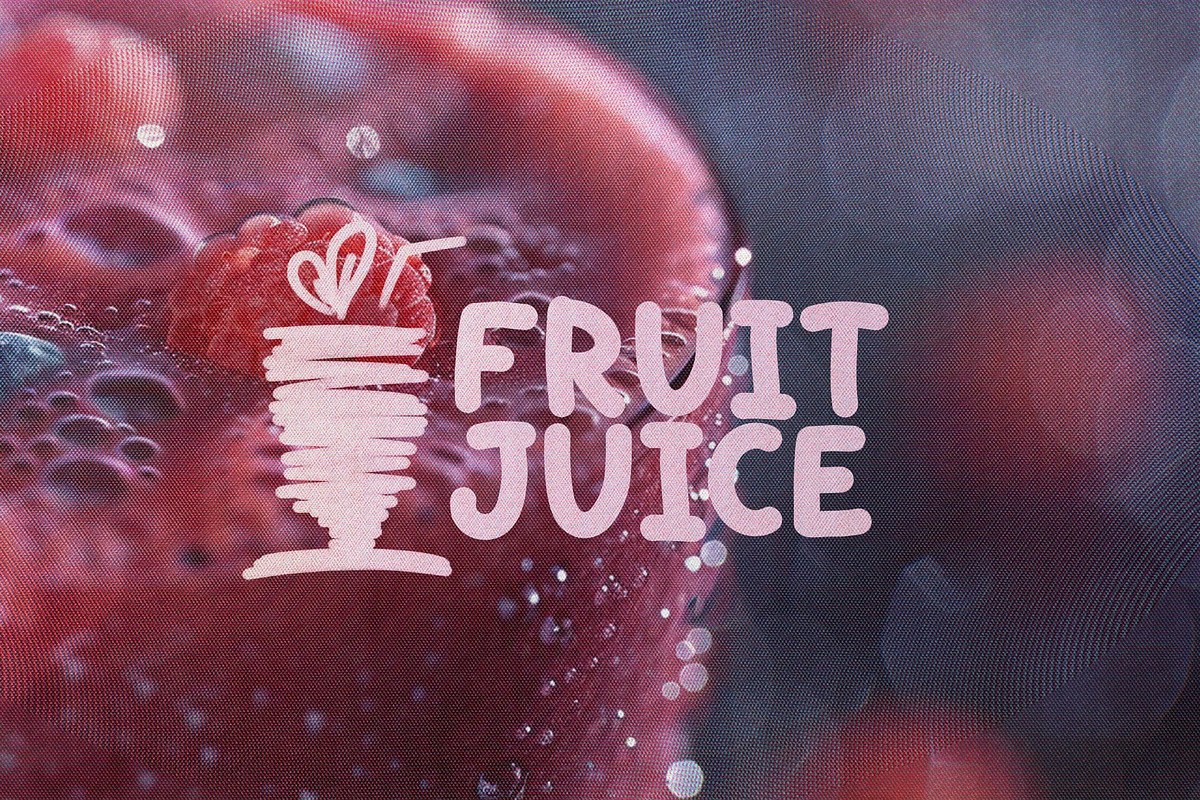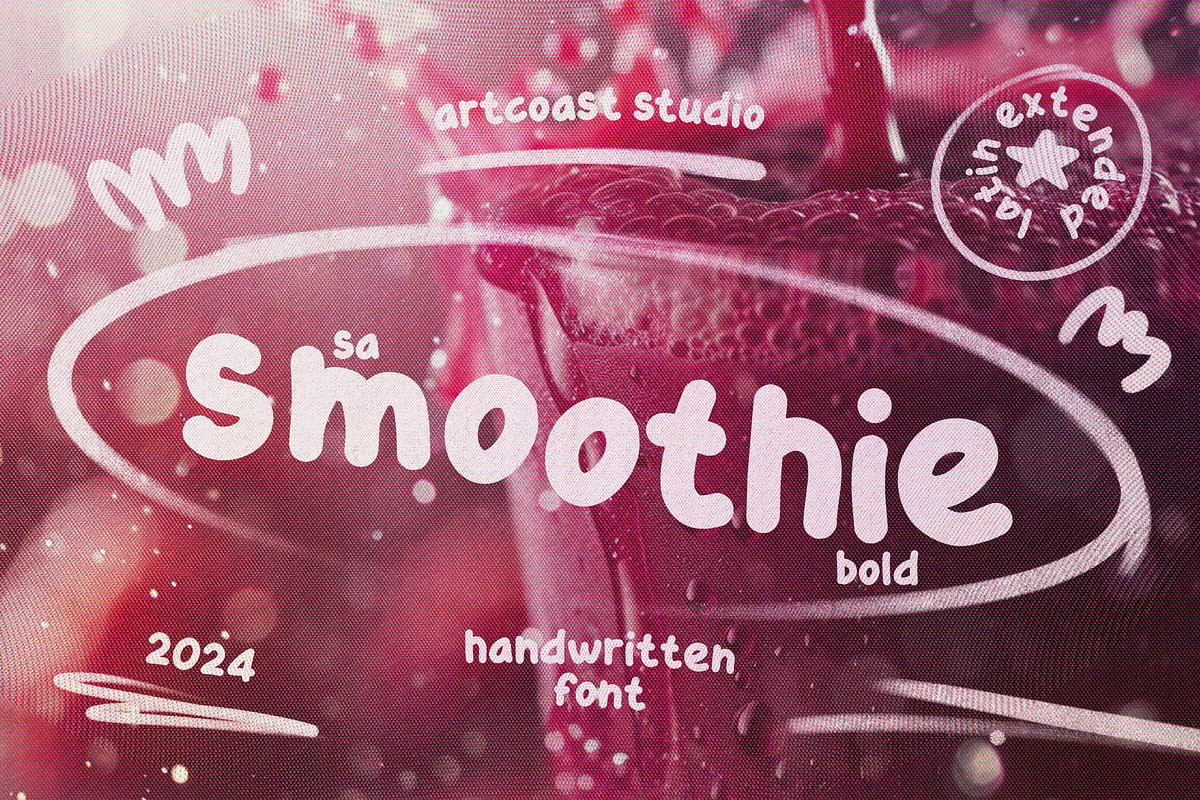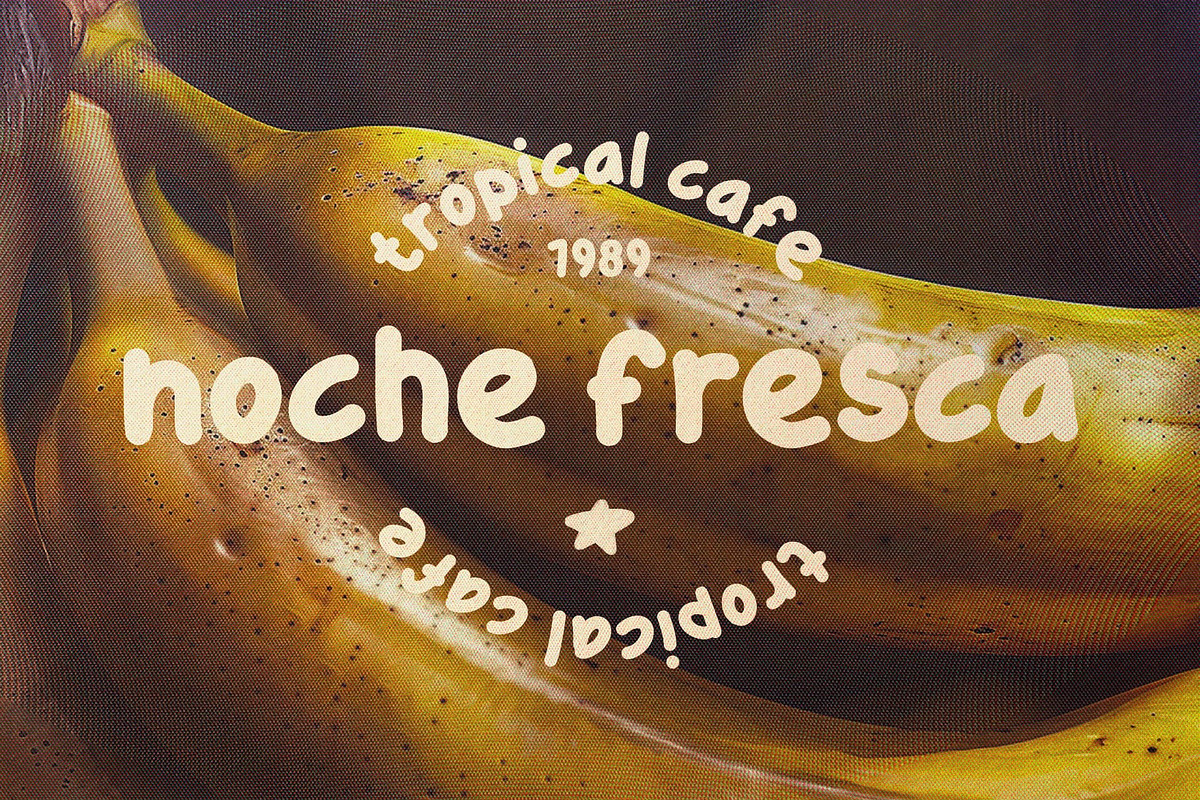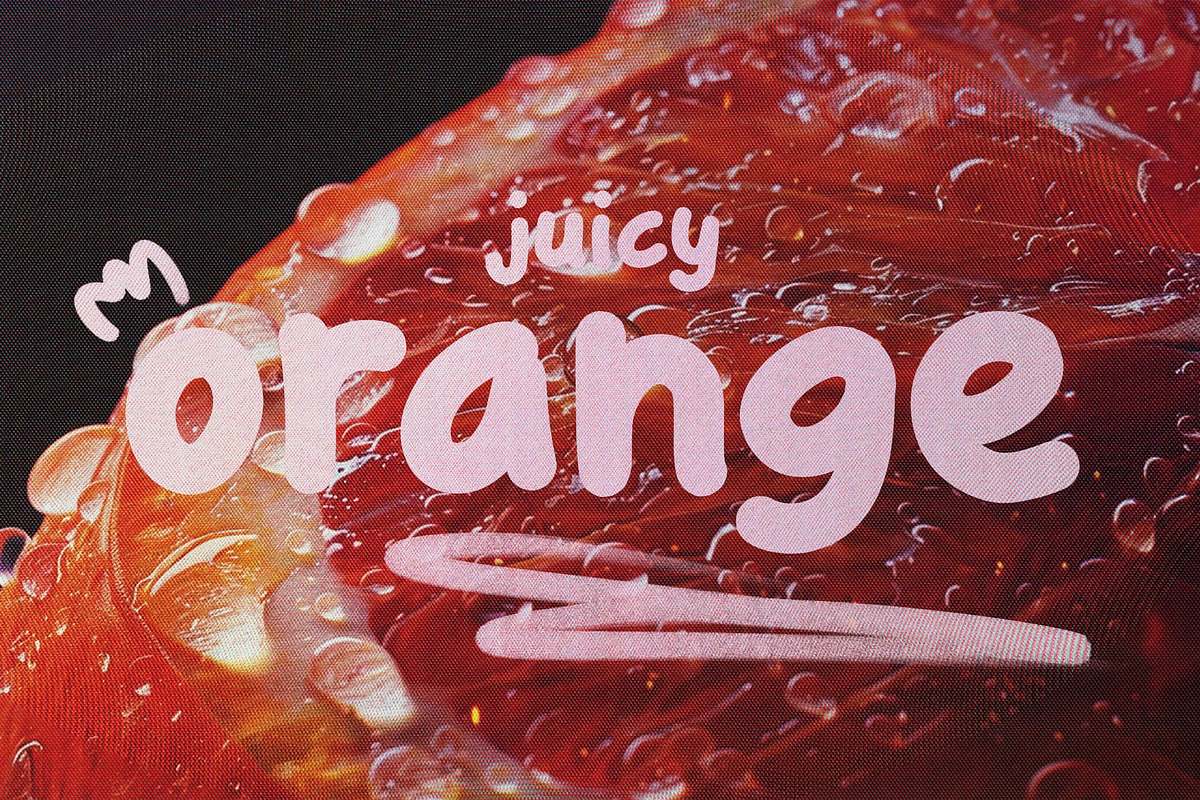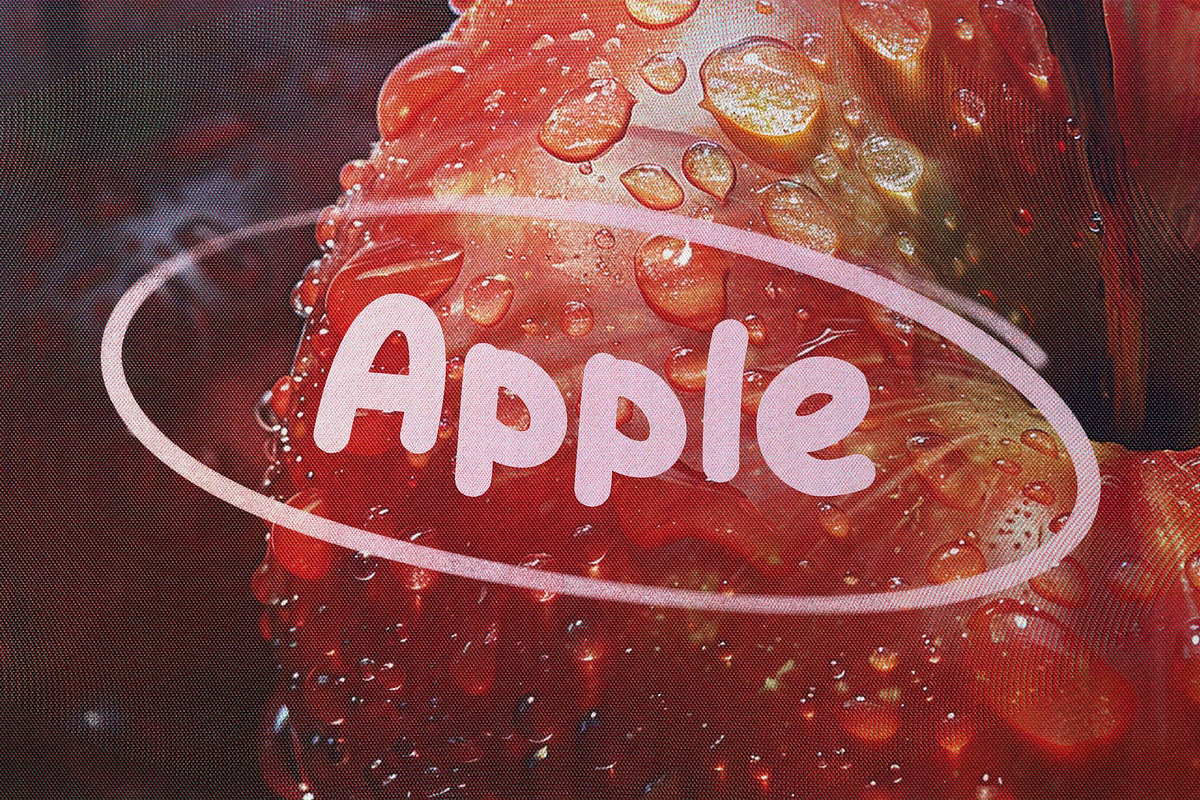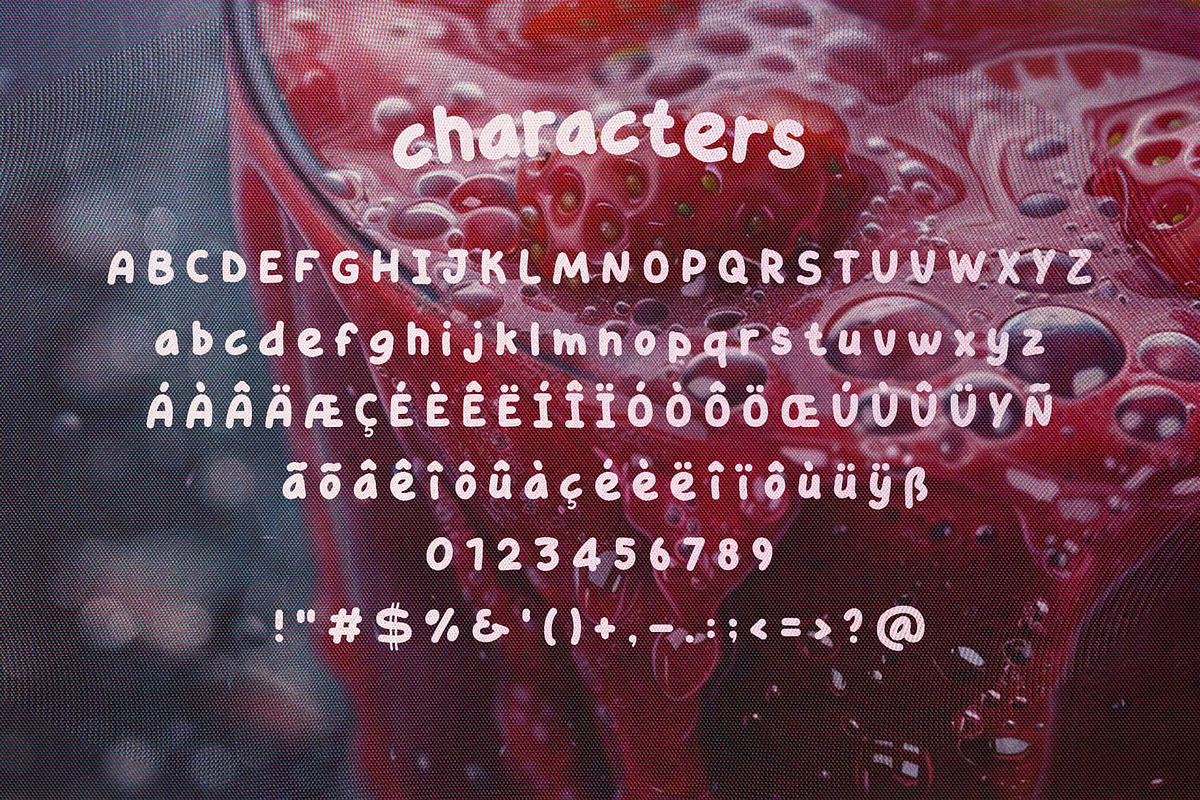
SA Smoothie Bold Handwritten Font
SA Smoothie Bold is a playful handwritten display font with chunky rounded letterforms and a friendly hand-drawn texture. Its strong silhouette stays readable while adding personality to packaging, food and beverage branding, logos, posters, social graphics, labels, children’s projects, and bold headlines.
Uppercase and lowercase letters
Numerals and essential punctuation
Latin Extended multilingual support
Food, drink, and café branding
Packaging, labels, and menu design
Playful logos and identity systems
Posters, quotes, social posts, and children’s projects